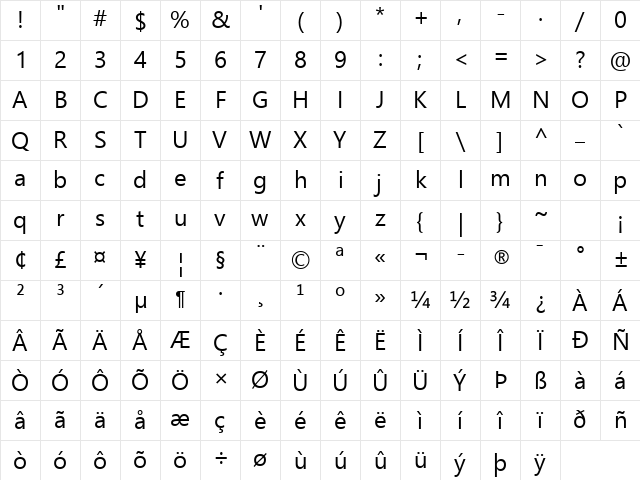
Nirmala UI Regular
Foundry: Microsoft Corporation
Designer: Tiro Typeworks Ltd. Bengali by Jo De Baerdemaeker; Devanagari by John Hudson & Fiona Ross; Gujurati by David Brezina; Gurmukhi by John Hudson; Kannada by Valentin Brustaux; Malayalam by Fernando Mello; Meetei Mayek by Neelakash Kshetrimayum; Odia by J
Design Context for Nirmala UI
Nirmala UI is a composed and adaptable typeface that performs quietly and consistently across a wide range of design contexts.